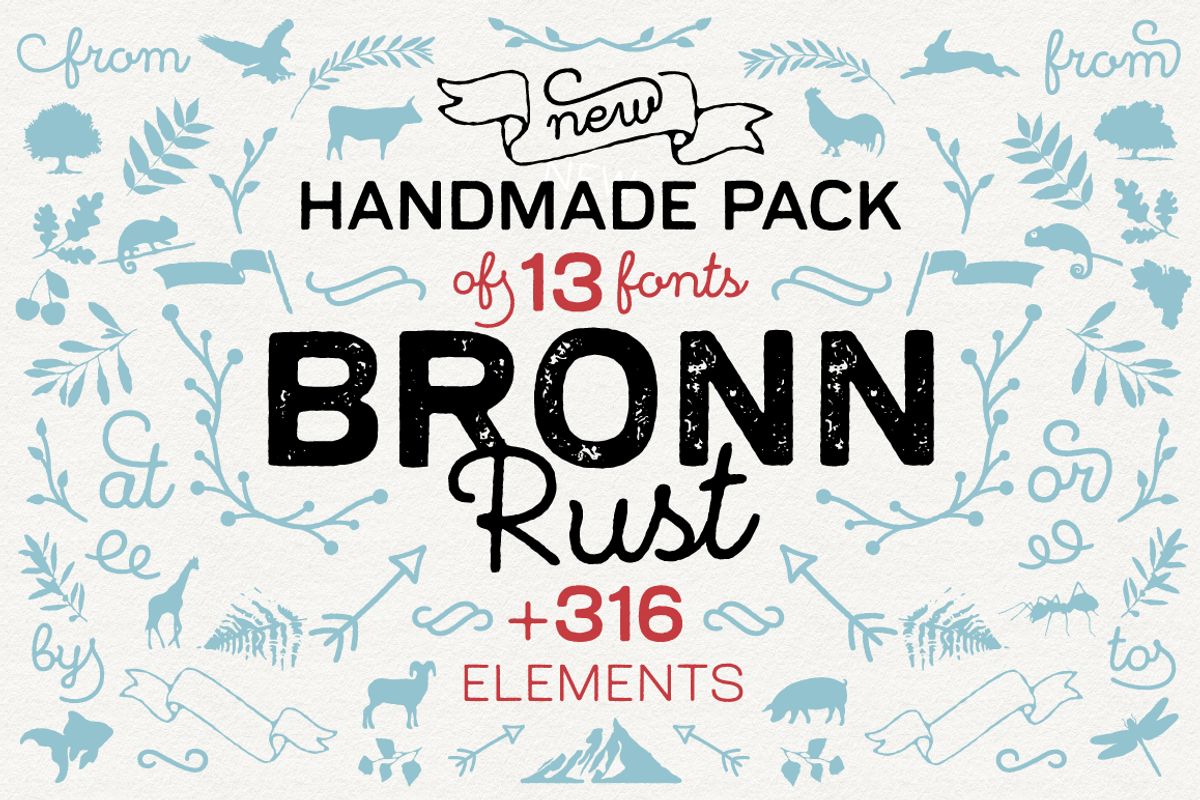
Please note, to use this font for commercial purposes, you must purchase the full version. Bronn Rust is a bold and rugged font that combines a distressed, weathered style with a modern design. Perfect for logos, posters, branding, and designs that need an industrial or vintage touch, this font adds strength and character to your work. Whether you're creating a gritty brand identity, an outdoor event poster, or a retro-inspired design, Bronn Rust brings an authentic, rough edge to your projects. Test it out and enjoy free download access for personal use. Experience the bold, rugged style of Bronn Rust Font Free Download before purchasing the commercial license. Add a powerful, worn touch to your designs with Bronn Rust.